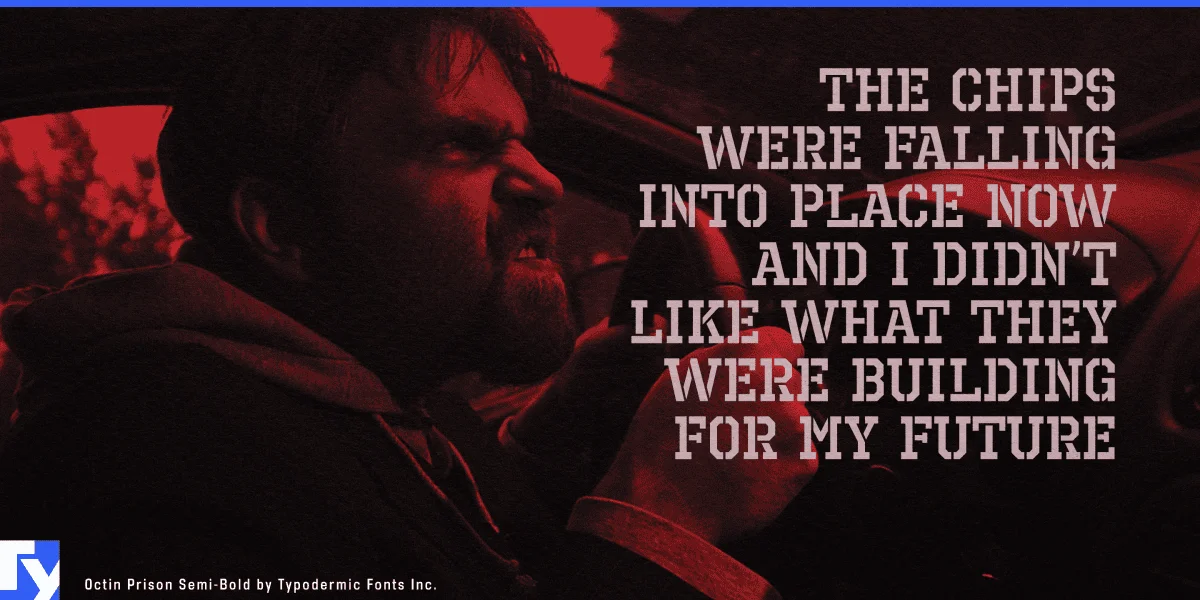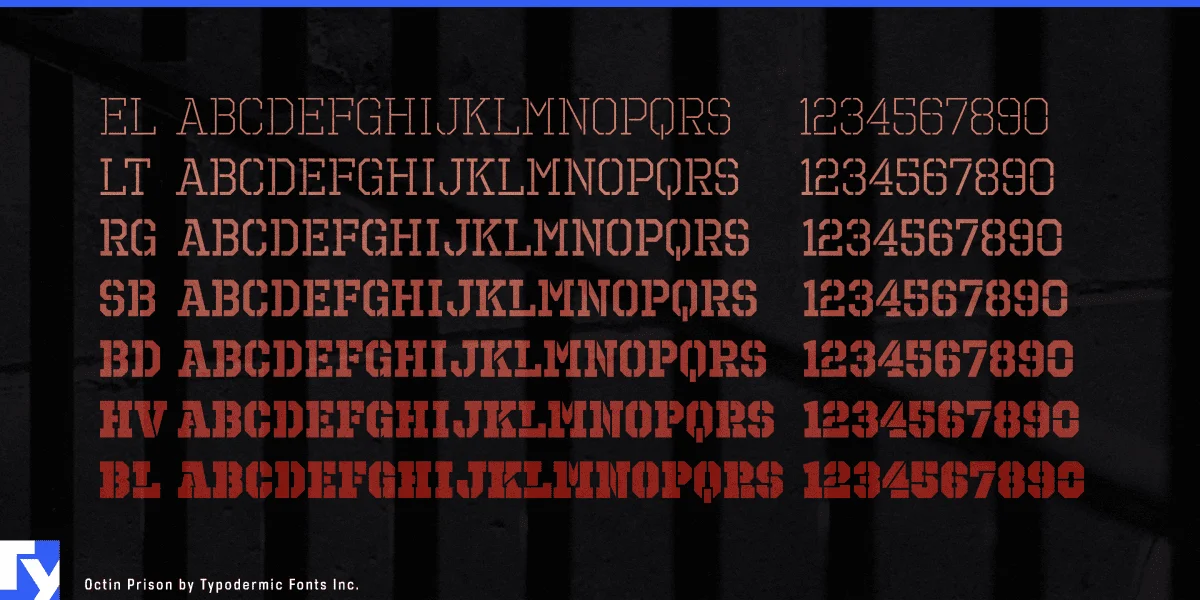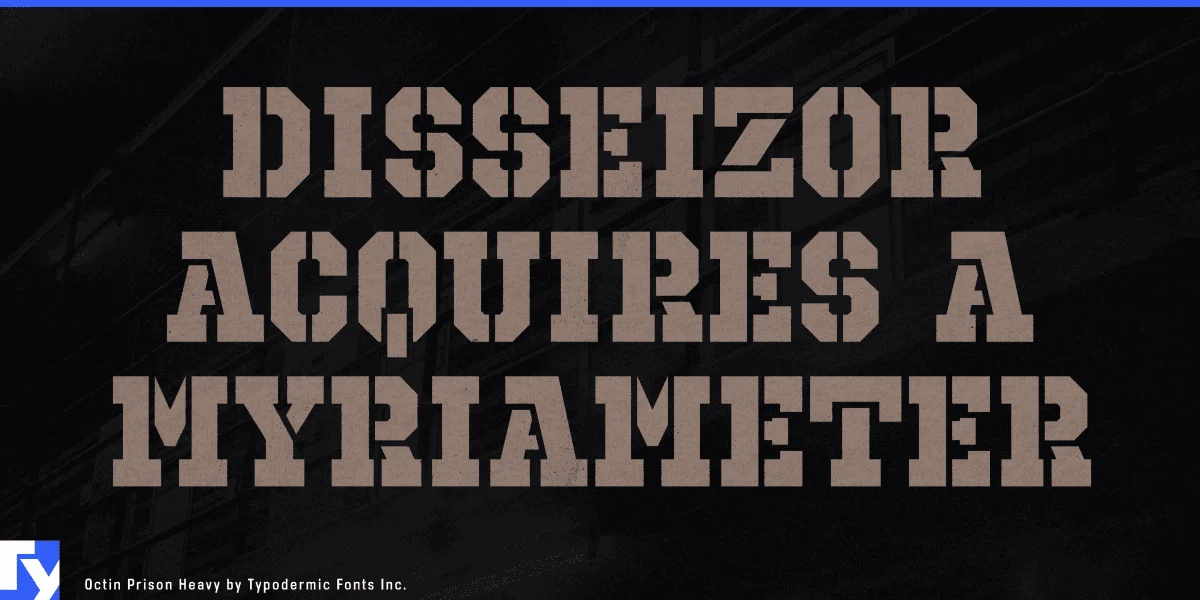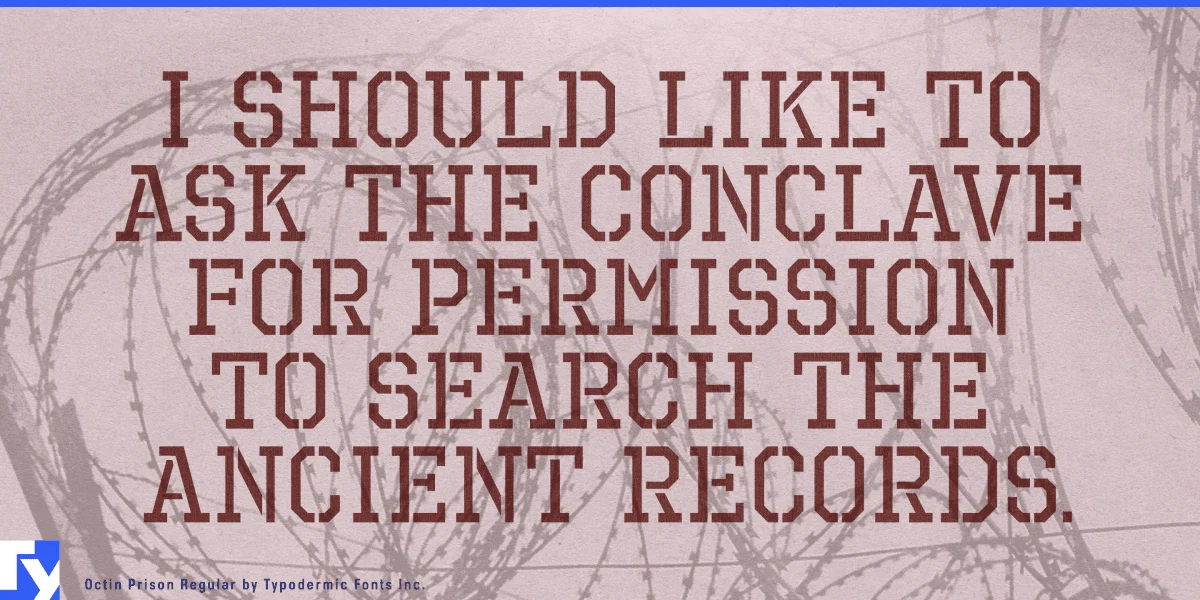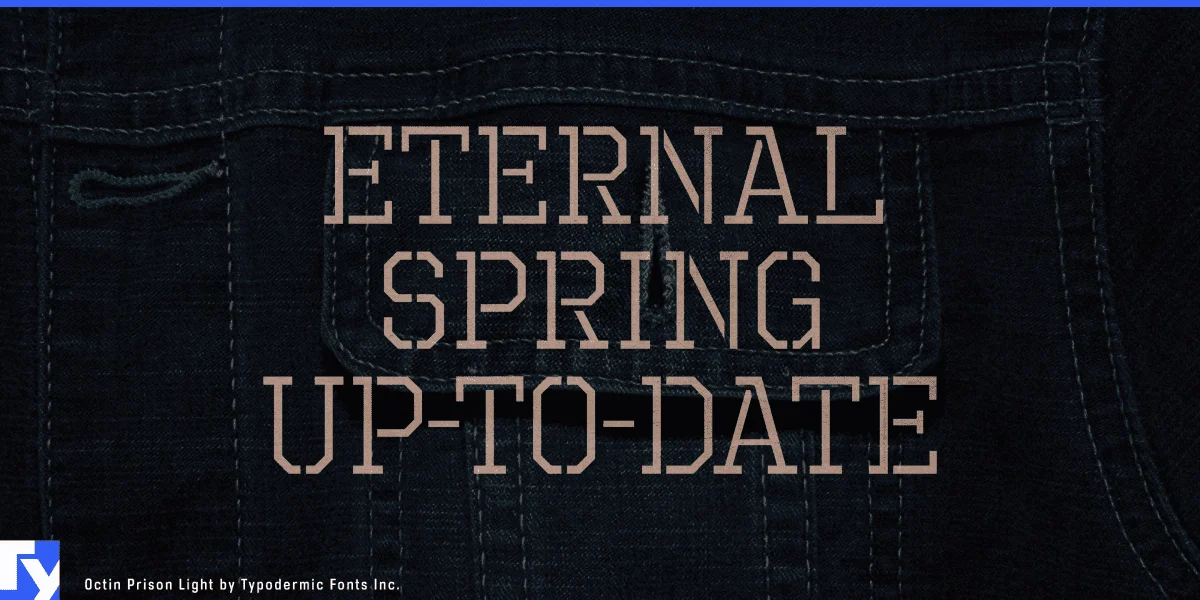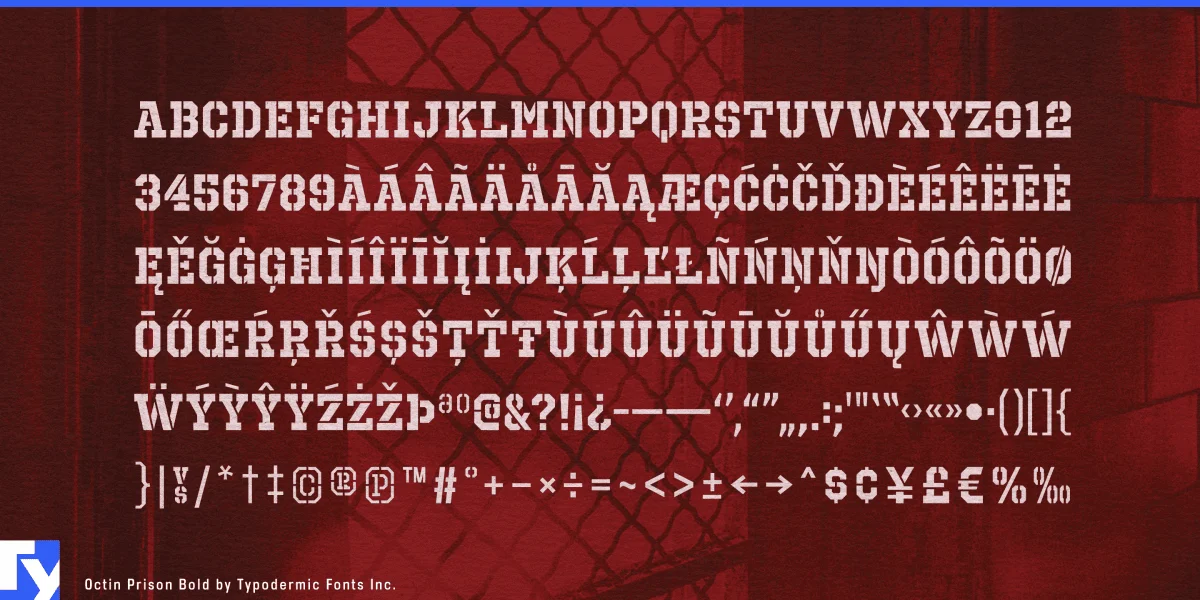
Welcome to the yard, designers! Octin Prison is here to serve some serious typographic time, offering seven weights of pure, unadulterated visual toughness. This font family isn’t just doing a stint in design—it’s here for the long haul, ready to transform your projects into maximum-security masterpieces.
From the lightweight “minimum security” to the heavy “solitary confinement” black, Octin Prison gives you a full range of typographic muscle. The lighter weights sneak your message past even the most vigilant eyes, while the heavier grades slam your words home with all the subtlety of a jailhouse door. But don’t let the name fool you—this versatile typeface breaks out of confinement to serve time across a range of themes. It flexes its biceps for sports teams, stands at attention for military units, keeps order for police departments, and puts in hard labor at construction sites.
Octin Prison speaks the language of toughness in any tongue. With support for most Latin-based European writing systems, it ensures your message maintains its street cred from the back alleys of Brooklyn to the rugged coastlines of Norway. It’s a typeface that’s done time on both sides of the Atlantic and lived to tell the tale. This font is just one member of the notorious Octin gang. Team up with Octin Sports for designs that go the extra mile, Octin College for a more scholarly approach to toughness, Octin Stencil for military-grade impact, Octin Vintage for old-school grit, and Octin Spraypaint for that raw, street-smart edge.
In a design world full of pushovers, Octin Prison stands its ground. It’s for brands that don’t just make an impression—they leave a mark. For messages that don’t whisper—they lay down the law. From “Wanted” posters to hardcore band logos, Octin Prison communicates with the raw power of a prison-yard push-up contest champion. Choose Octin Prison and let your designs do hard time in the penitentiary of powerful typography. Because in the cell block of impactful type, Octin Prison isn’t just serving a sentence—it’s running the whole dang joint.